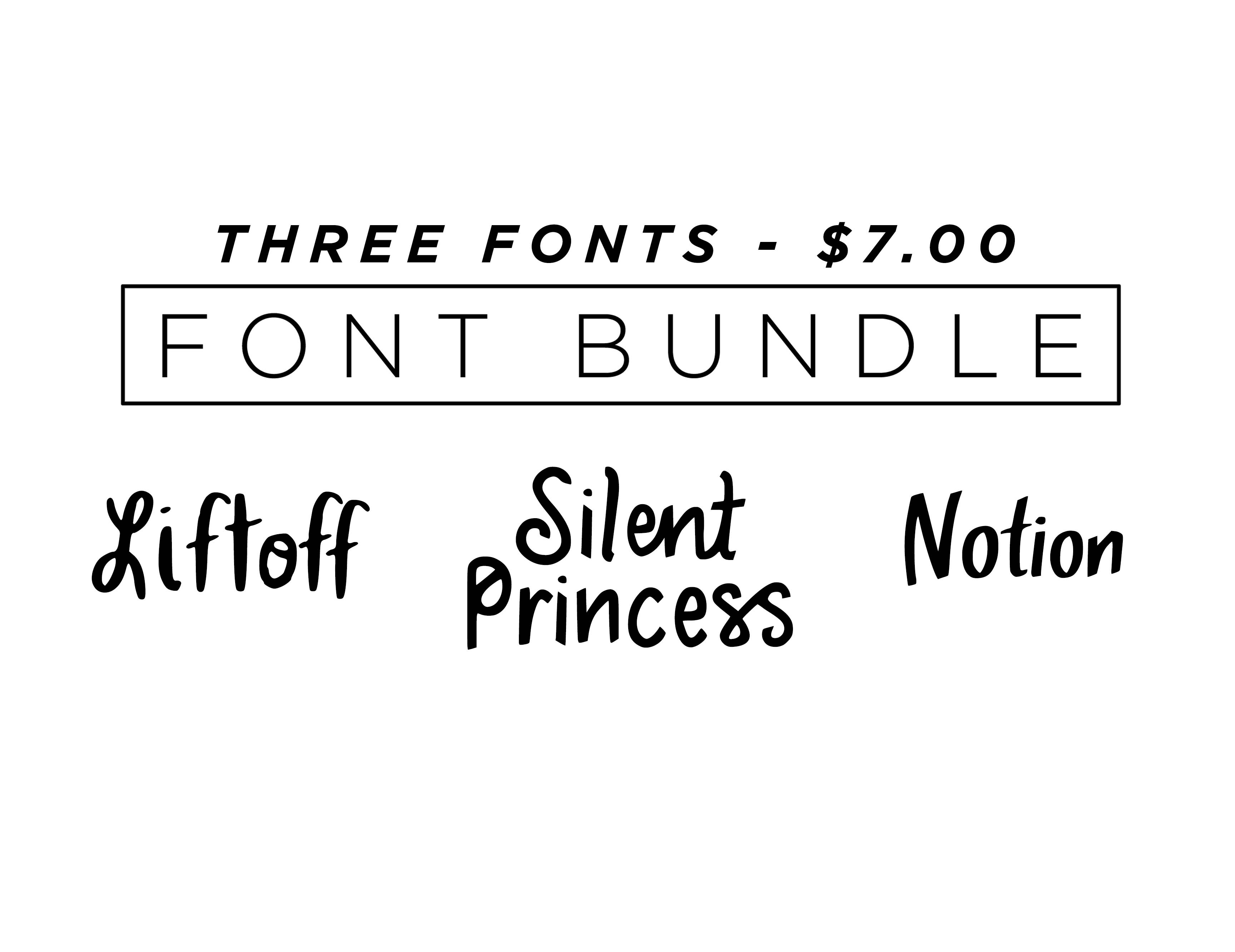
Font Bundle ONE
THREE IN ONE BUNDLE You get three handwritten fonts for a deal! Liftoff, Silent Princess & Notion all have upper and lower cases, as well as numbers and a large variety of symbols and punctuation!